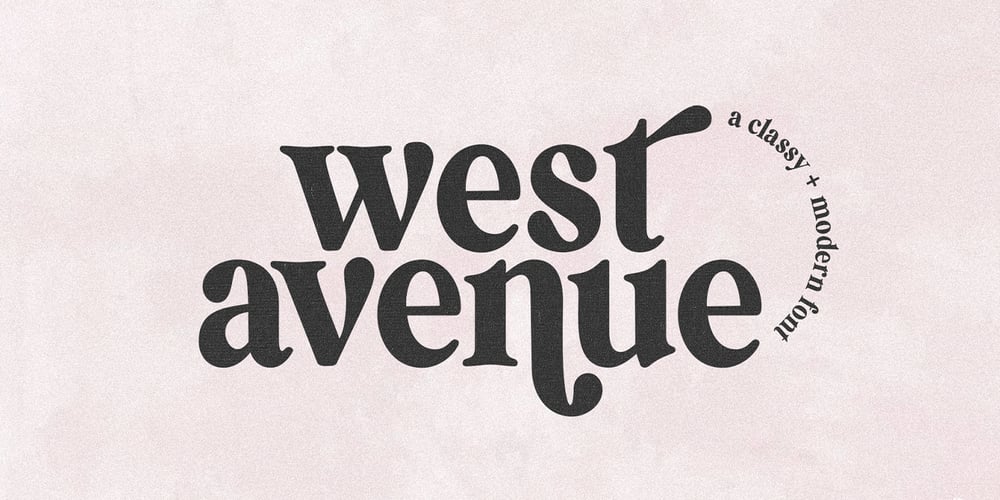
West Avenue Font Family was designed by Kaitlynn Albani and published by KA Designs. West Avenue contains 1 styles and family package options. West Avenue is a chic font that combines the look of both a traditional and modern serif. Use opentype features to take full advantage of the sleek alternates and glyphs – making each project luxurious and unique!This font is perfect for logos, branding, packaging, advertisements, social media and more!